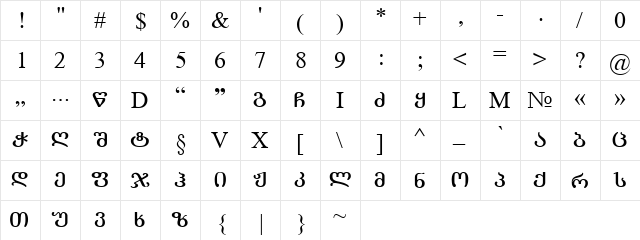
Literaturuli mtavruli Normal Font Preview
Literaturuli mtavruli Normal
Literaturuli mtavruli Normal Font Details
Design Context for Literaturuli mtavruli Typeface
Literaturuli mtavruli offers clean, dependable letterforms without strong stylistic allegiance, making it a practical choice for designers who need flexibility.